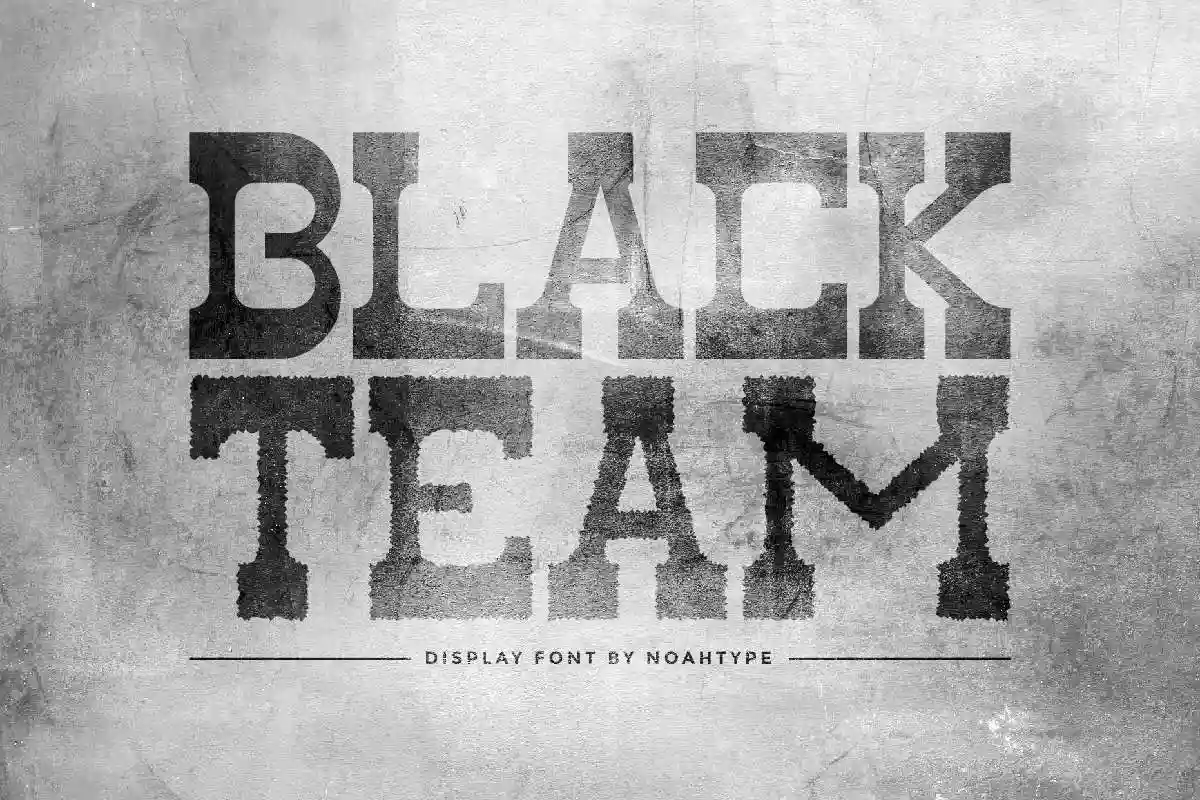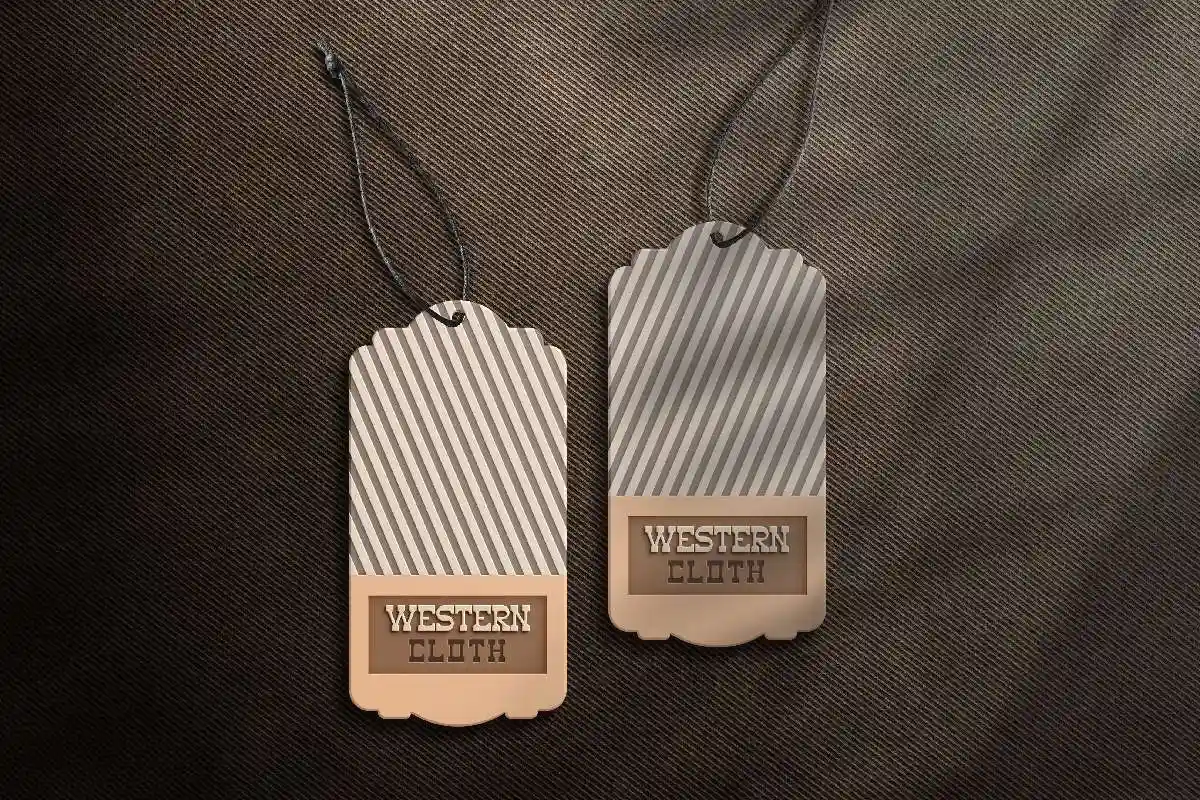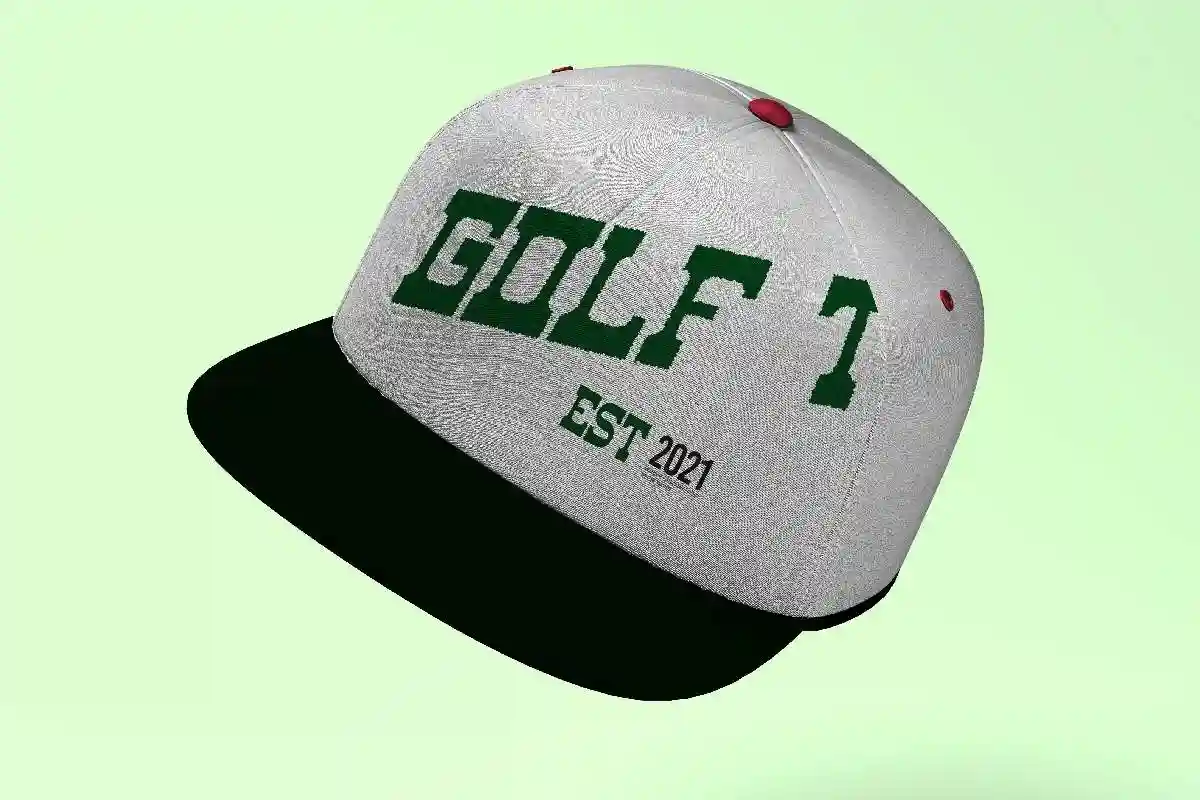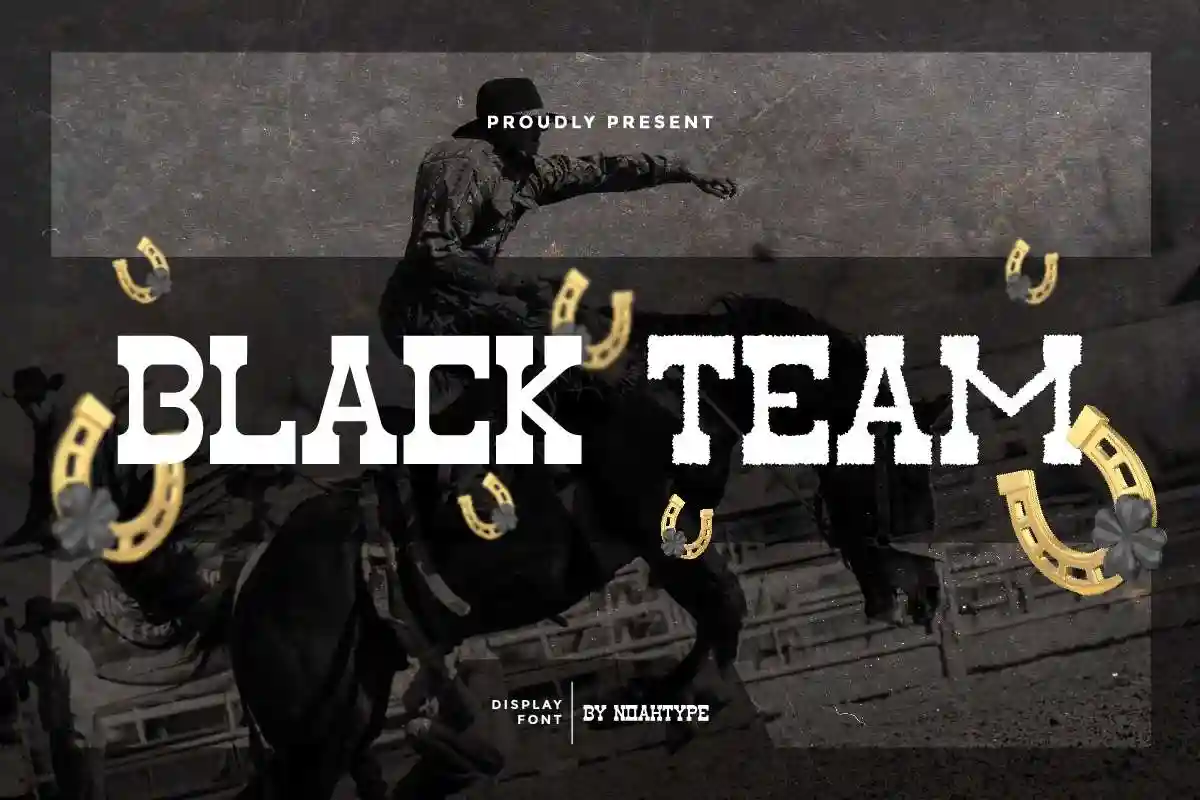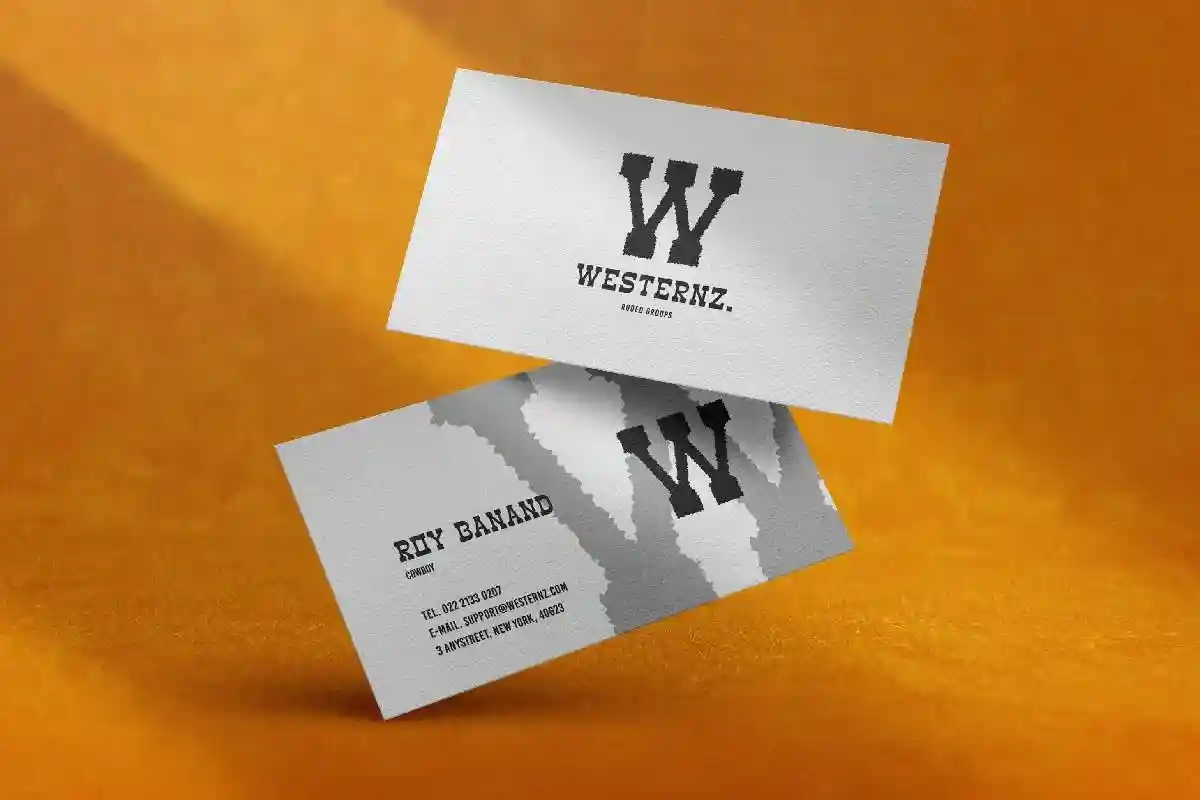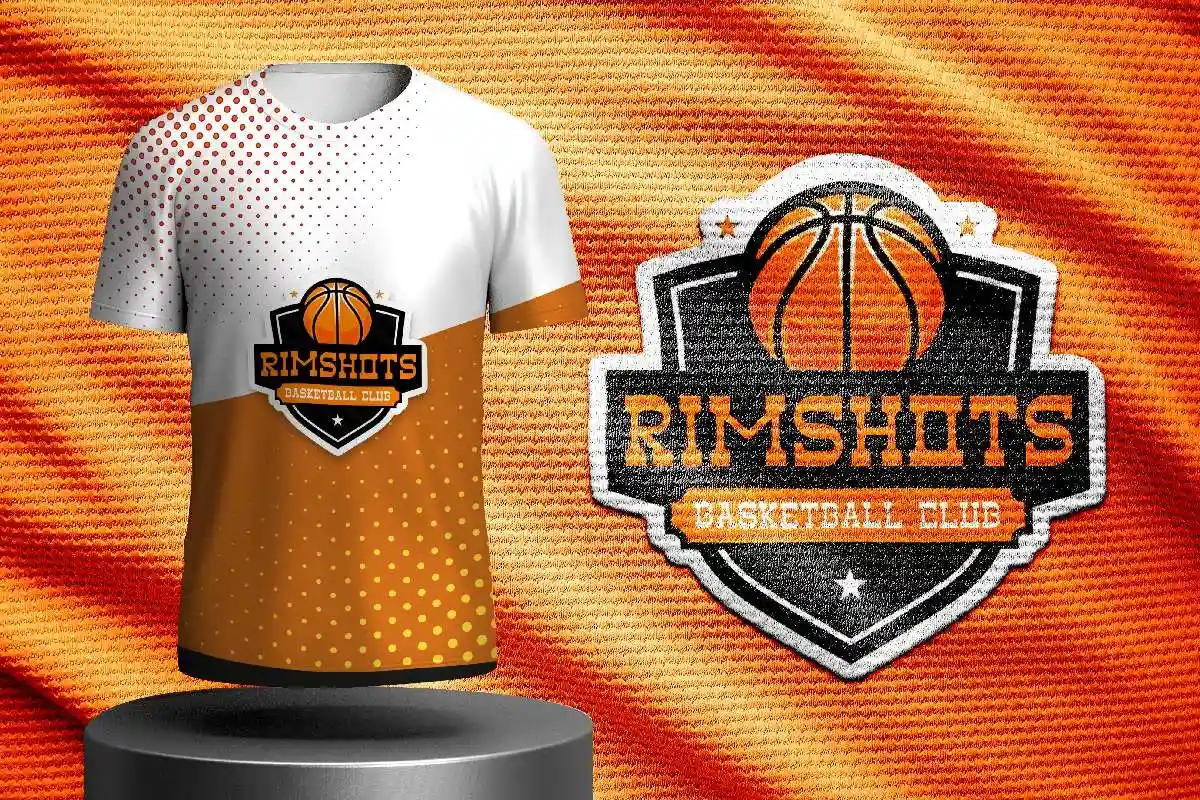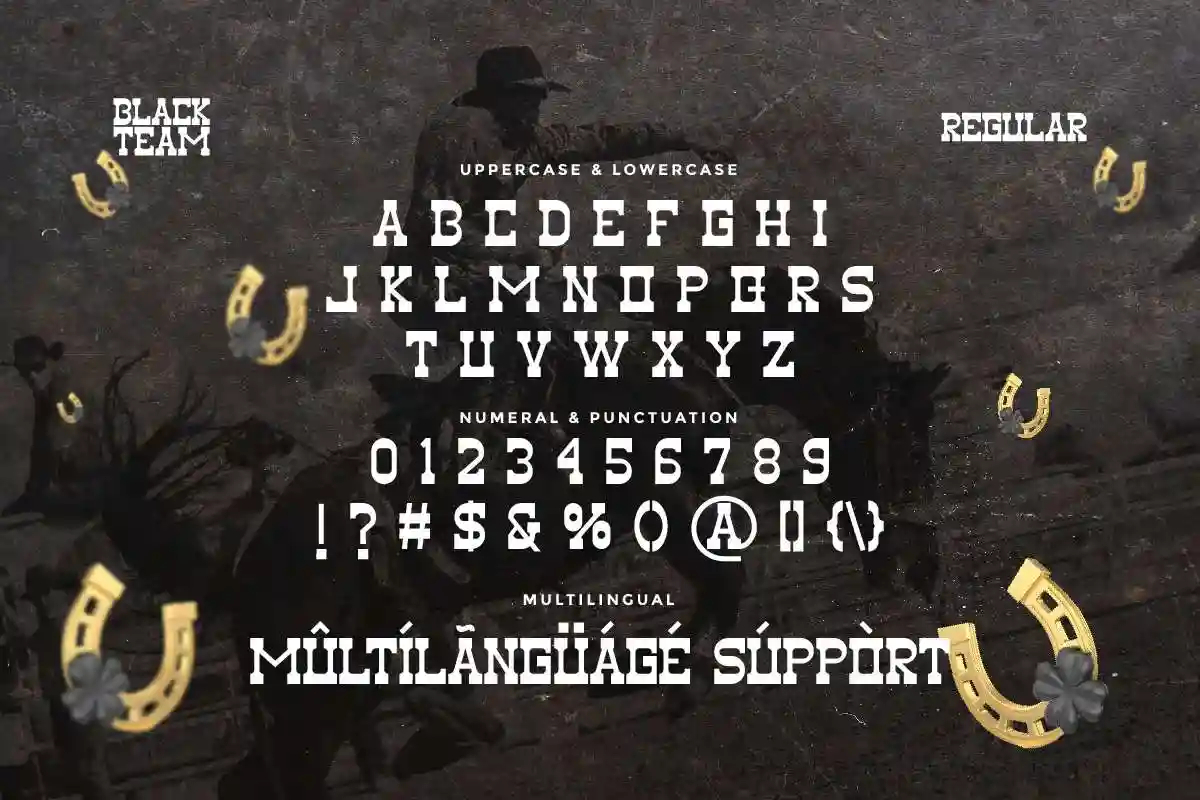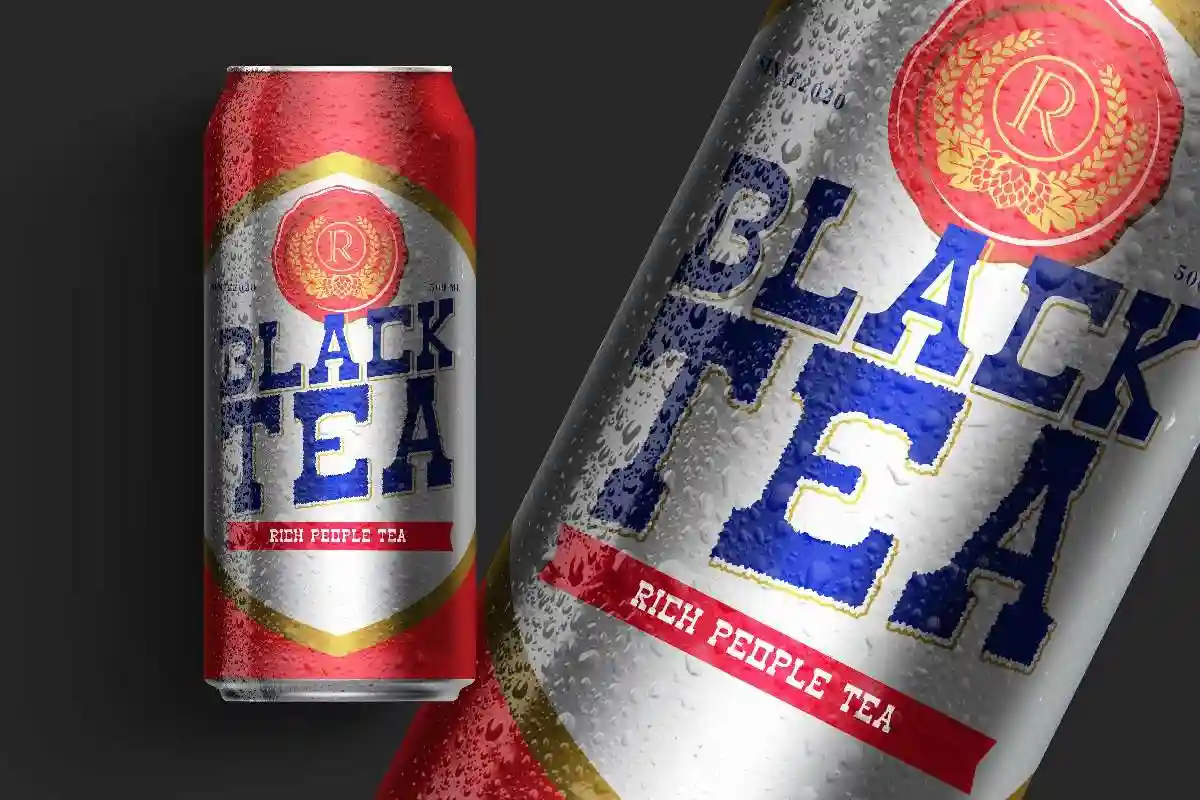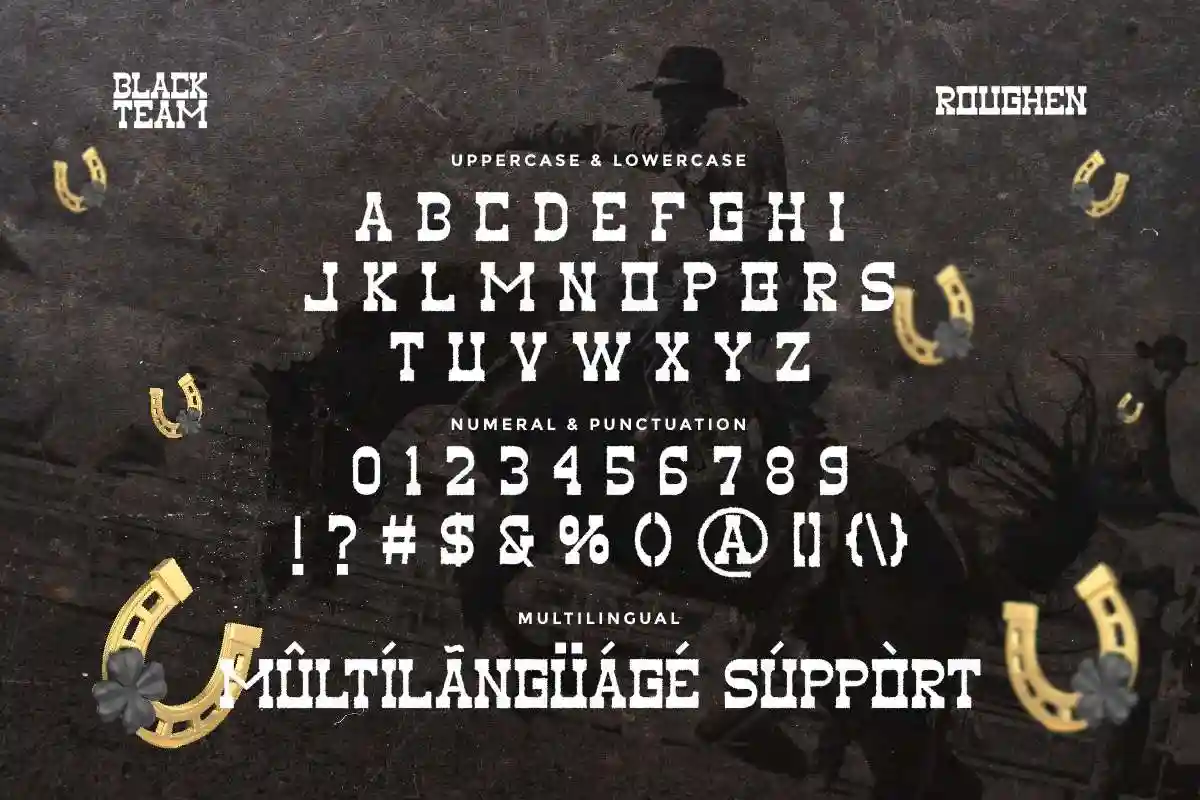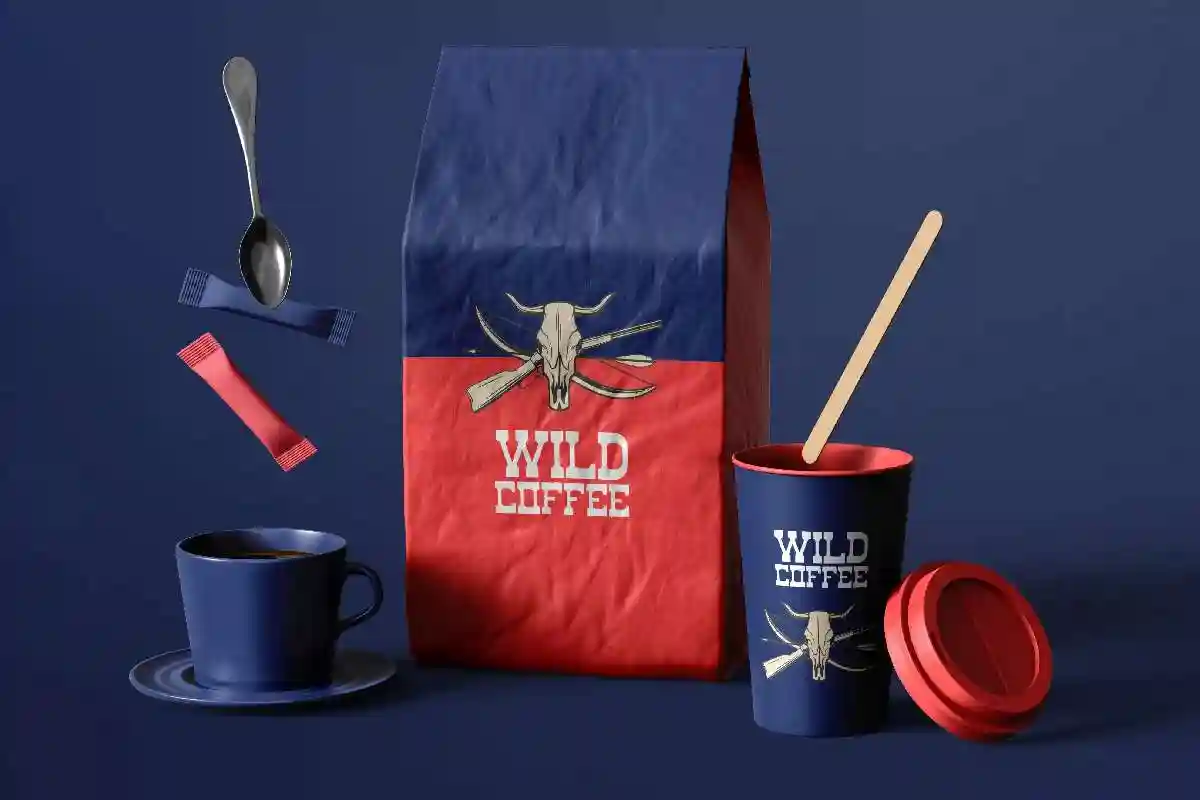
Black Team is a unique serif display font with roughen style. The font was inspired from roughen art. It has a unique style that will bring the special effect to the design. It will works for events, branding, artist, make up, and any other fun things. Black Team includes full set of Uppercase and Lowercase Basic Characters, Numerals and Punctuation. The font will also works for outdoor, fashion products, camping, adventure style. The font is perfect for many projects, headlines, logos, poster, tittle, products, etc
Black Team Font have two styles for alternatives characters stylish options. The styles are : Regular and Roughen. It will be ready to use both on Windows machine or Mac. It work well on Adobe software such as Illustrator, Photoshop and several other software.